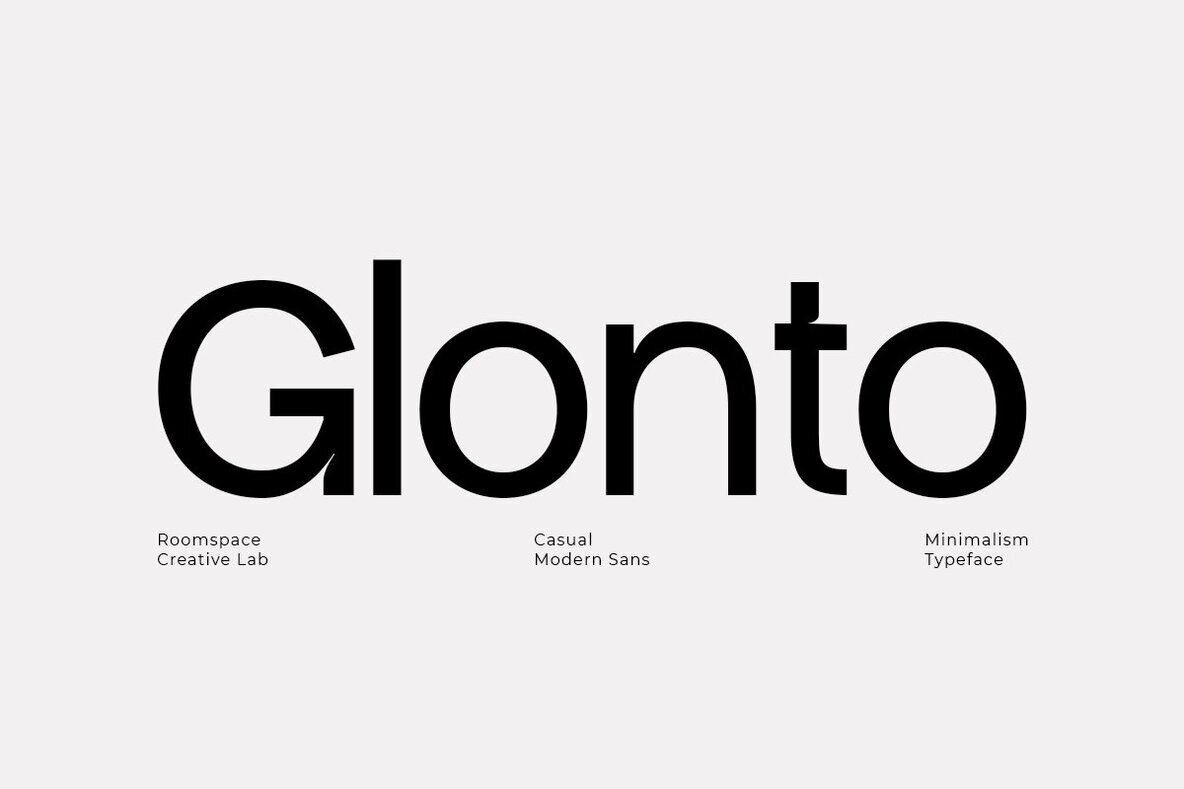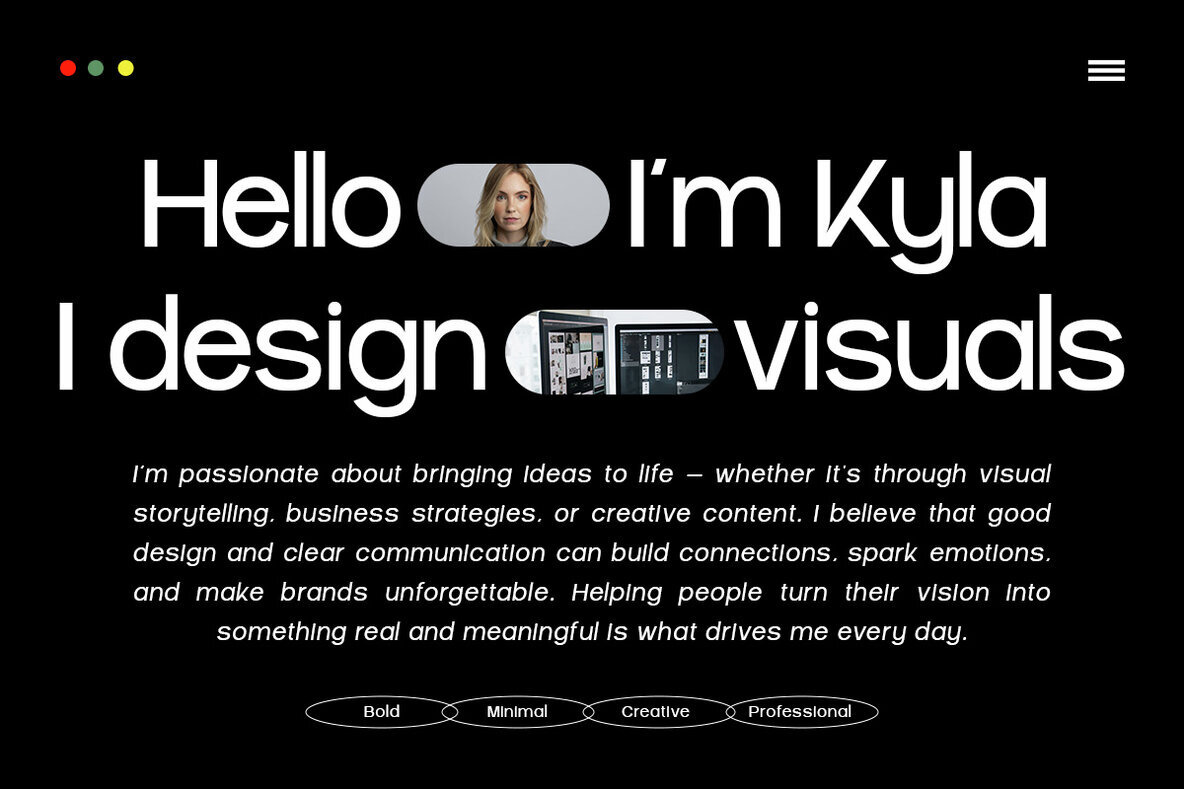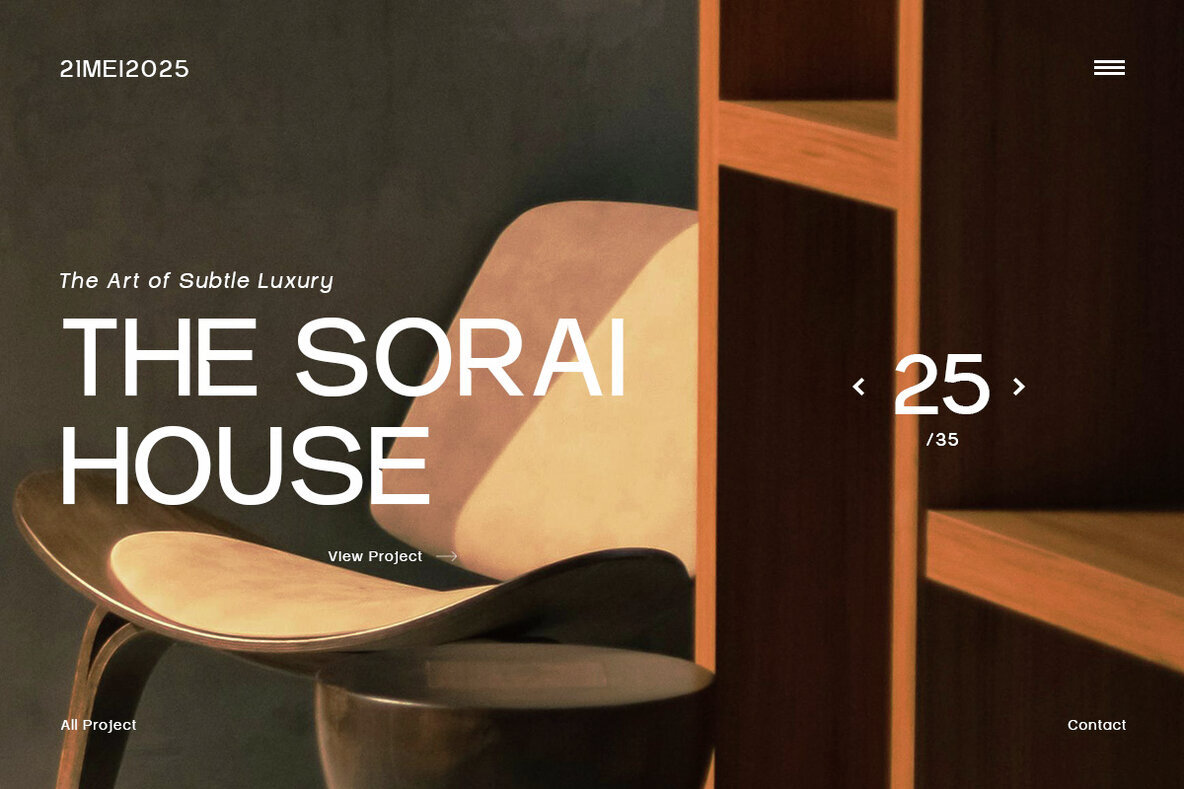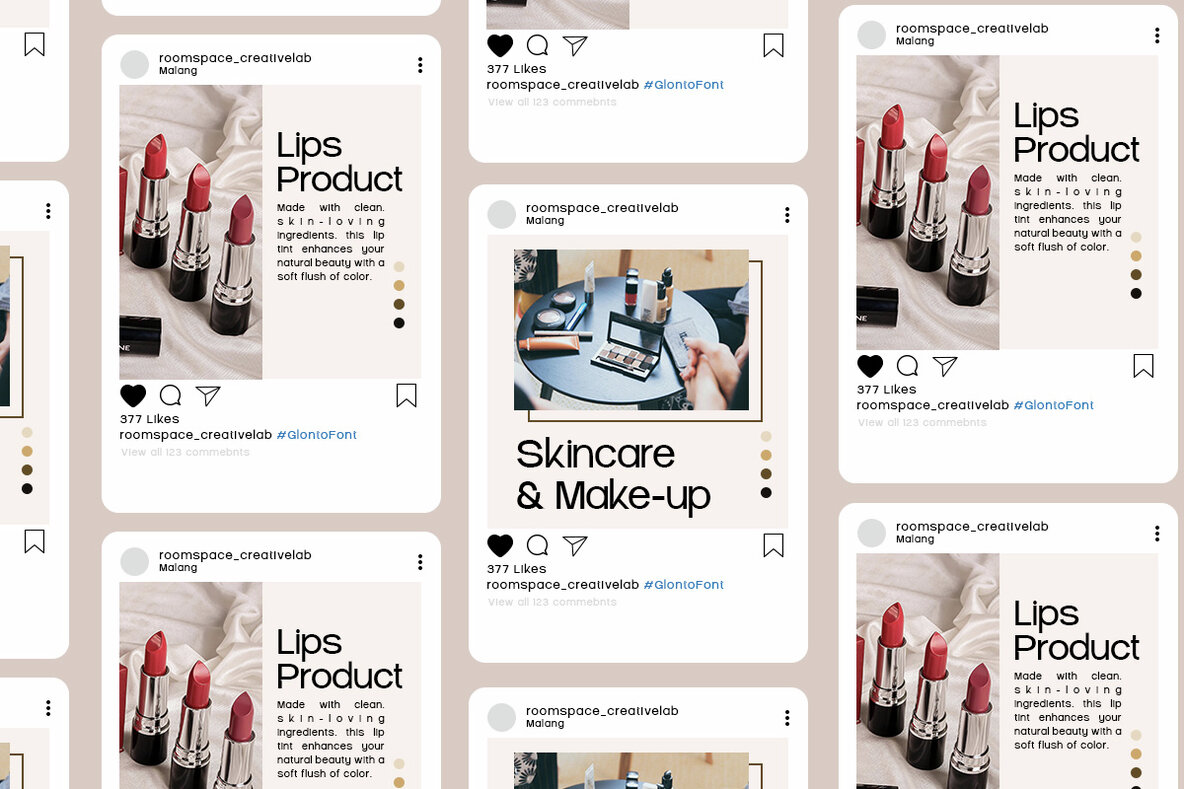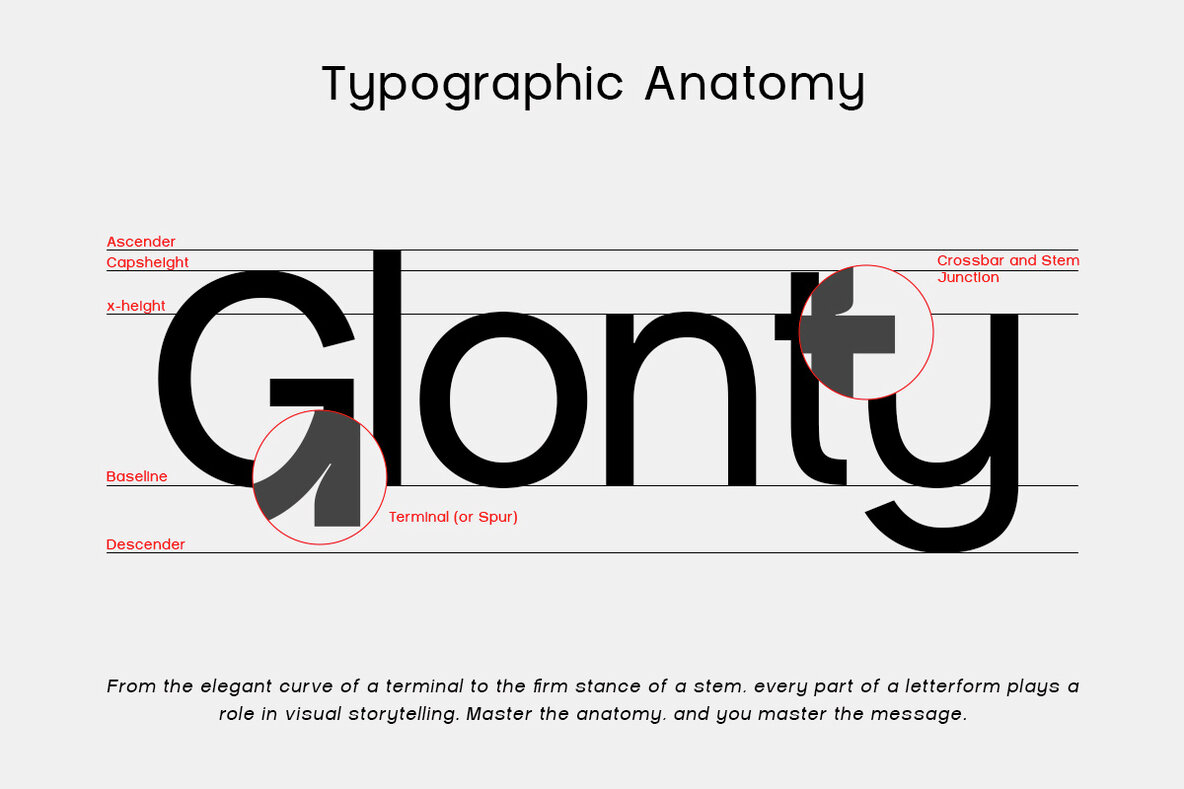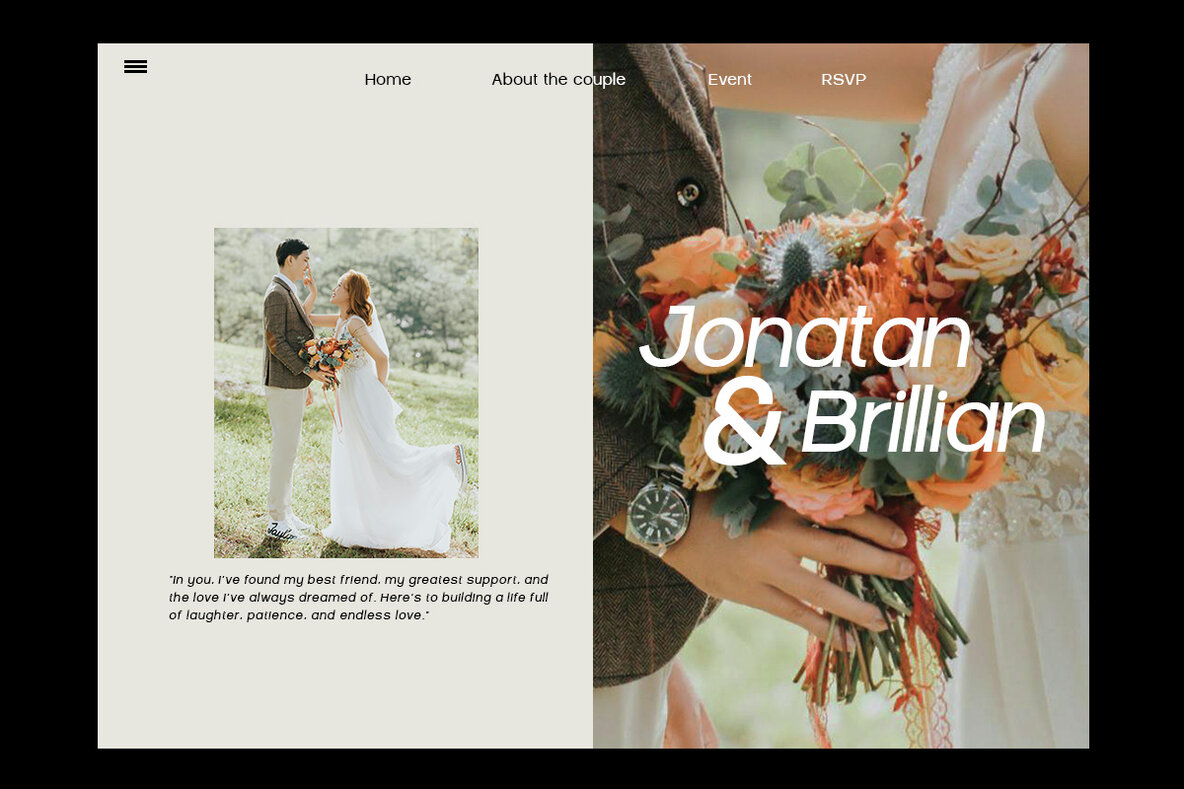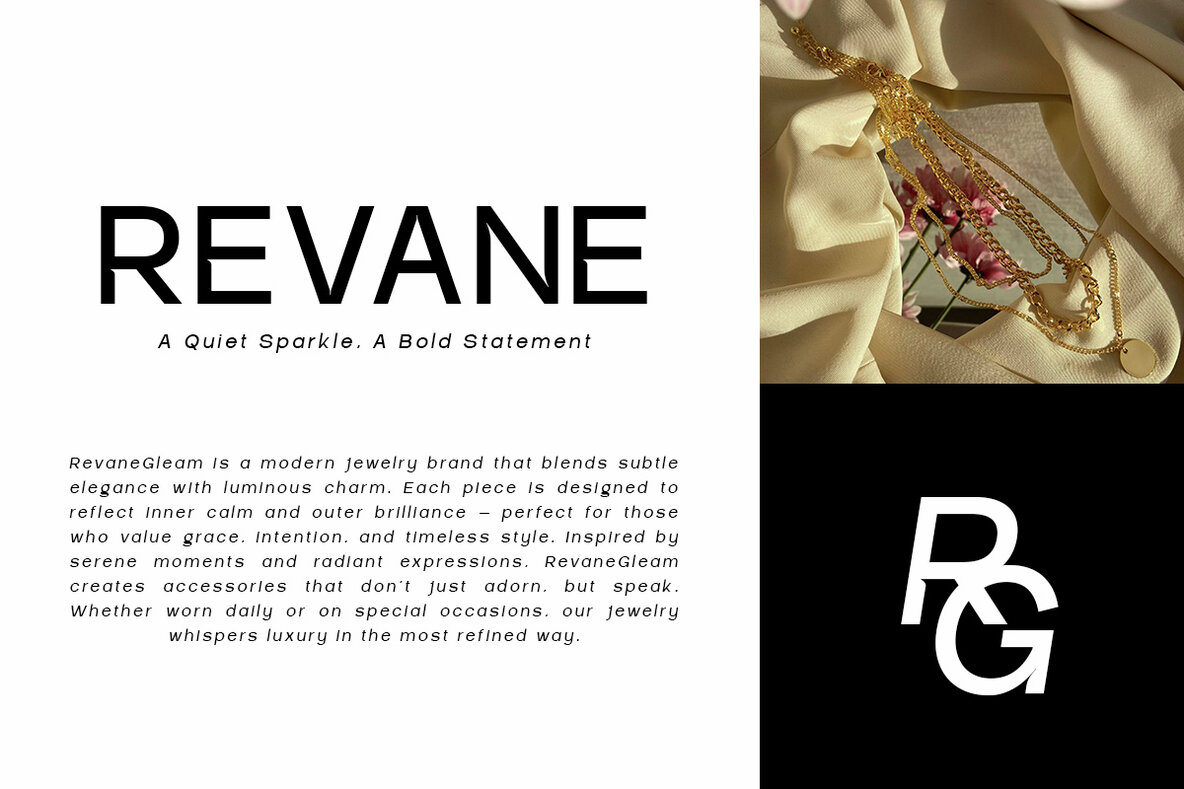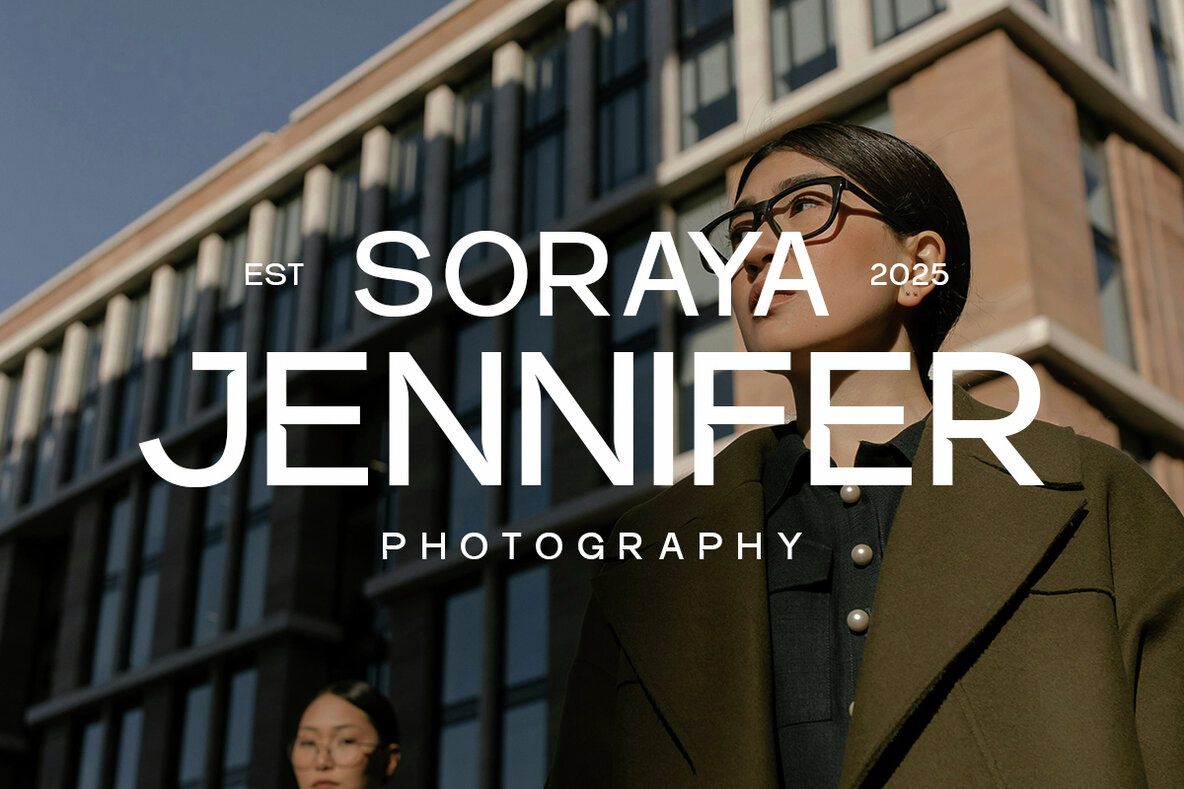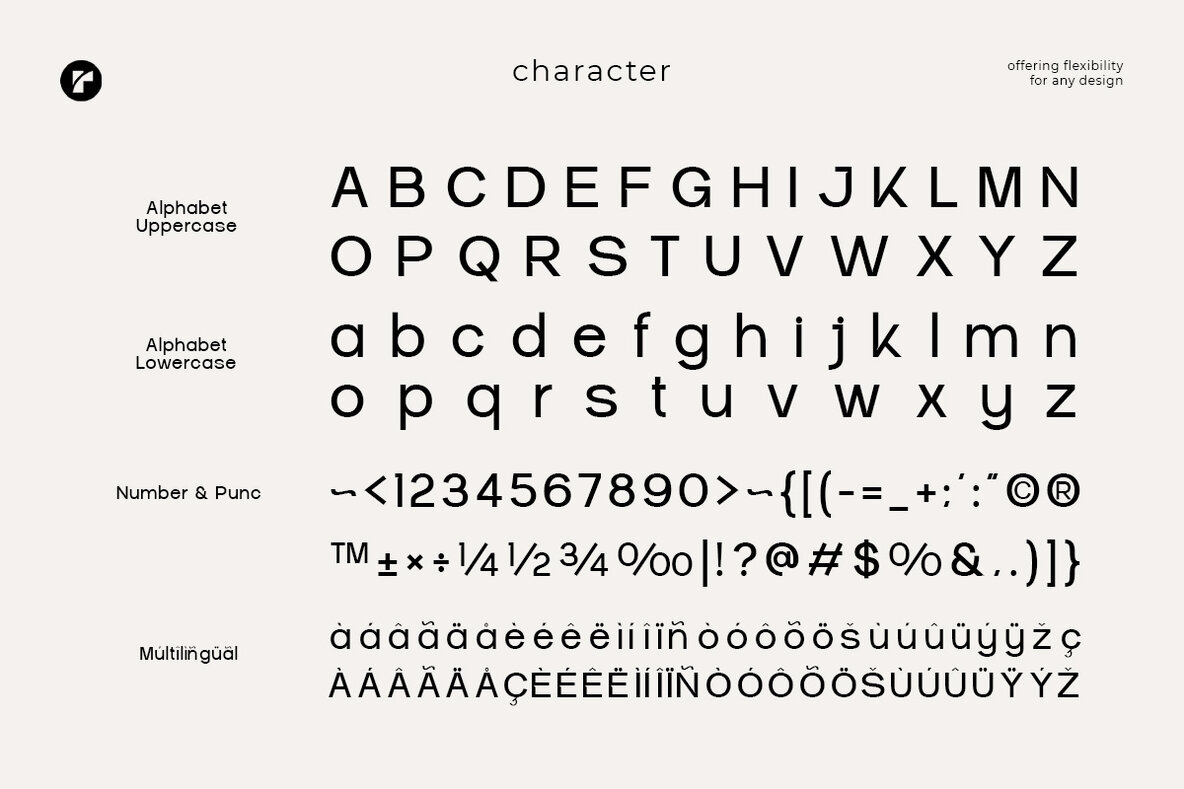
Glonto Font
Discover the clean elegance of Glonto, a sans serif font that embodies simplicity without sacrificing sophistication. Whether you're venturing into branding, UI/UX design, or editorial projects, Glonto offers a fresh perspective to make your creations unforgettable.Glonto: A Modern Sans Serif Marvel
Design Features